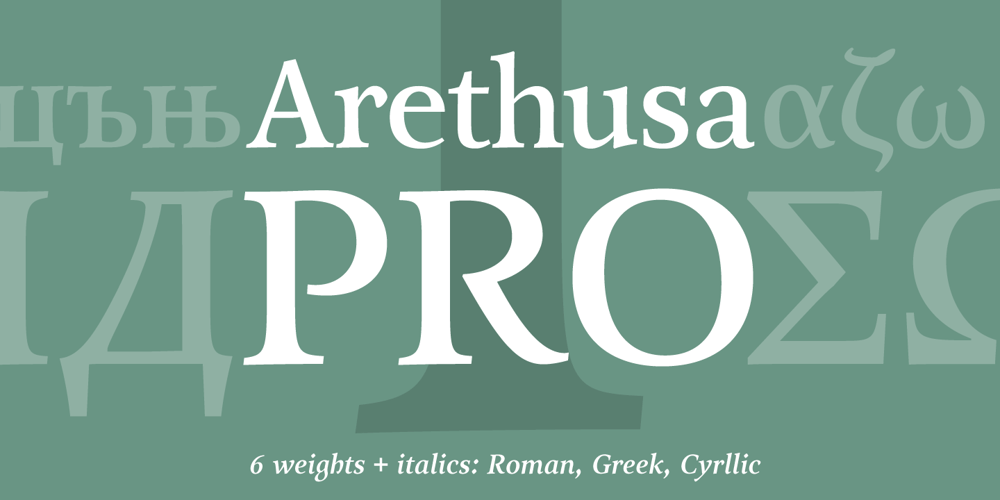
Arethusa Pro Font Family was designed by Nicholas Garner and published by AVP. Arethusa Pro contains 12 styles and family package options. Arethusa Pro is a versatile font after the ‘transitional’ style – a style that has been evolving for 250 years. The balanced design of familiar letter forms blends form with function to create highly readable text. Twelve fonts organised in three sub-families provide a range of weights and styles. Language support includes Greek and Cyrillic and each font contains small capitals, superscript, fractions, ligatures, old-style numerals, case-sensitive forms and other opentype alternatives.